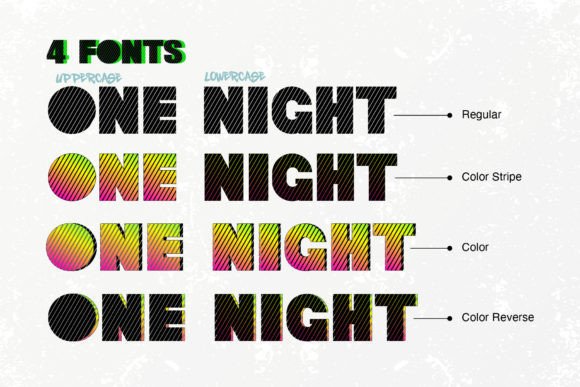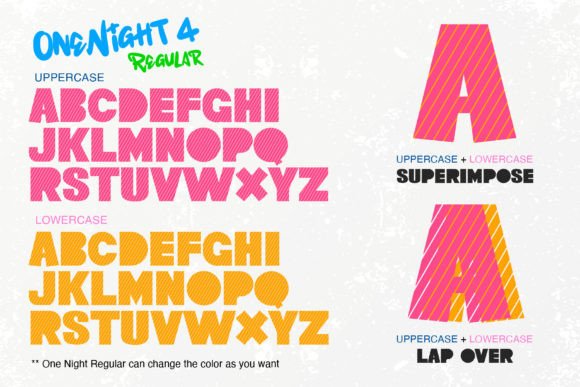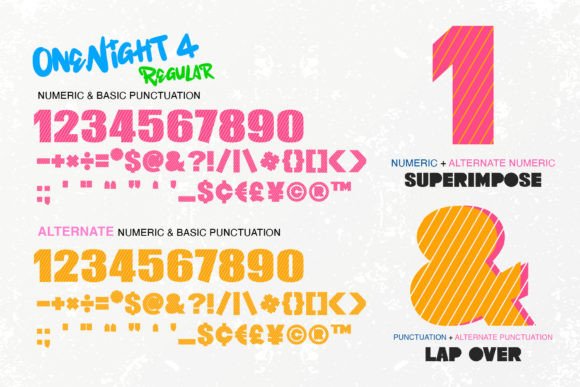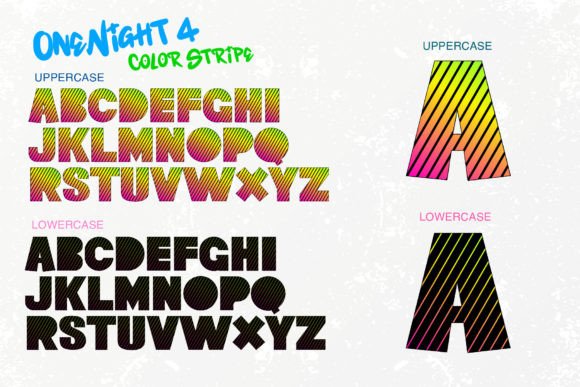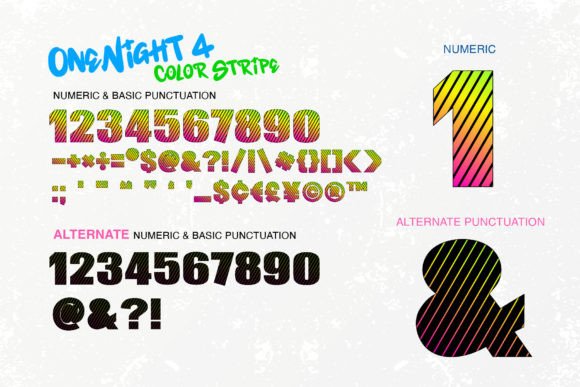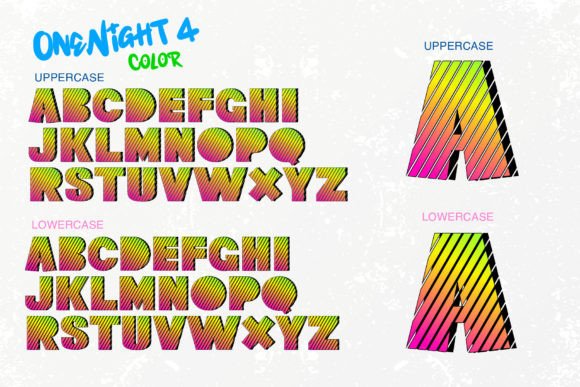
Introduction to One Night 4 Font
That’s where the One Night 4 Font comes in – a high-quality, versatile design resource that can elevate your creative project to the next level. With its unique blend of colors and decorative elements, this font is perfect for creating eye-catching book covers, T-shirt designs, posters, and more. Whether you’re a seasoned designer or just starting out, the One Night 4 Font is an invaluable asset to have in your toolkit.
Key Features of One Night 4 Font
- High-quality font design for creative projects, suitable for use as a design resource.
- Transparent background, making it easy to place over images or other backgrounds.
- Unique characteristics: bold, elegant, and modern design, perfect for adding a touch of sophistication to your creative project.
Honest Review: One Night 4 Font
Here are some of the things that I like about One Night 4 Font:
- ✨ Unique and modern design style that sets it apart from other fonts.
- ✨ Transparent background, making it easy to customize and integrate into any design.
However, I did encounter a few limitations while using One Night 4 Font:
- ⚠️ Limited character set, which may not be ideal for projects that require a wide range of characters.
- ⚠️ Not suitable for very small font sizes, as it may become difficult to read.
Tips for Getting the Most Out of One Night 4 Font
To get the most out of One Night 4 Font, use it in conjunction with other design resources, such as graphics and images. Experiment with different font sizes and colors to create a visually appealing design. Additionally, use the font’s transparent background to create seamless text overlays and other design elements.
Common Use Cases for One Night 4 Font
One Night 4 Font is a versatile design resource that can be used in a variety of creative projects, including branding, marketing materials, and digital design. Its high-quality design and transparent background make it perfect for creating professional-looking text elements and design elements.